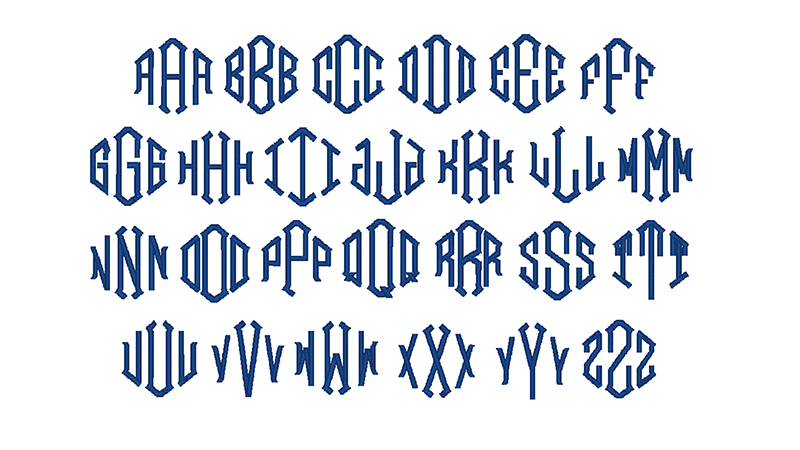
Diamond Block Monogram Font
Diamond Block Monogram Font. Lhf monogram diamond 1 includes the entire alphabet for the left side of the monogram. Lhf monogram diamond borders contains a variety of borders and backgrounds to use with the letters.
In This Style Of Monogram, The Letters Are Shaped To Fit Within The Outline Of A Shape — Like A Circle Or A Diamond.
The diamond monogram is a favorite for embroidering on linens, towels, clothing, and even a fun way to make your mark on furniture! Grab these fun, easy monogram fonts while they're free and check out the bundle deals for more font goodies! The diamond monogram font has a fancy typeface that has a very fabulous and stylish look.
Diamond Blocks By Vladimir Nikolic.